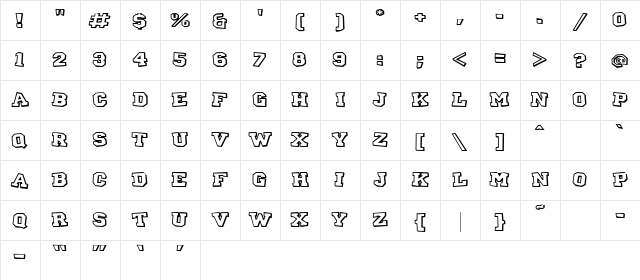
LD Letter Sweater Regular
Design Context for LD Letter Sweater Typeface
LD Letter Sweater takes a measured approach to typography — its balanced proportions and neutral character make it a reliable workhorse for both digital and print work.